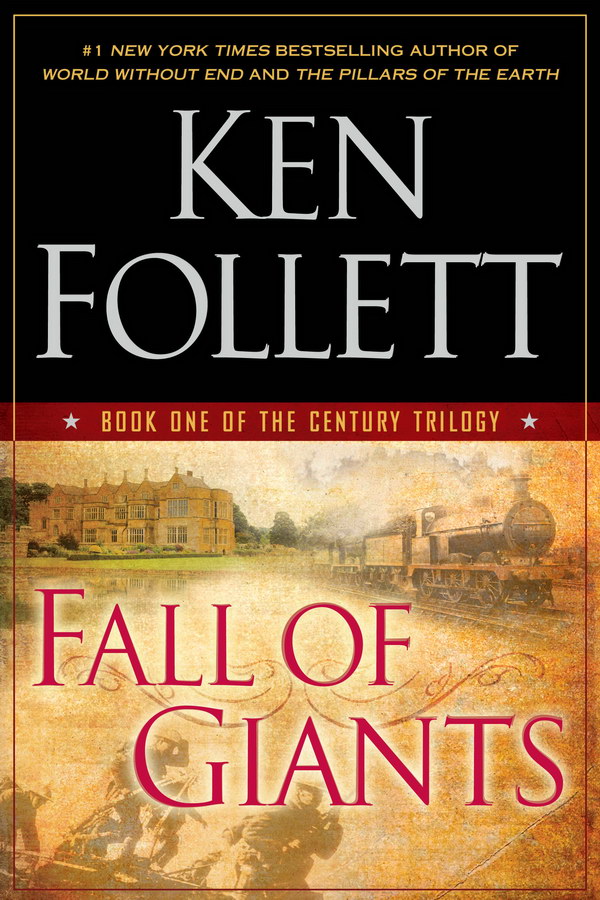
Fall of Giants Font
BookFall of Giants is a historical fiction novel by Ken Follett that tells the story of five interrelated families during World War I.
The book title "Fall of Giants" and the author's name on the cove are most likely set in Cresci font. The typeface was created by Garrett Boge and draws inspiration from the alphabets found in Giovan Francesco Cresci's renowned Renaissance writing manual, II Perfetto Scrittore.